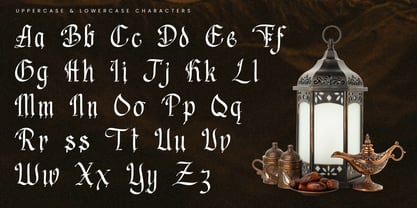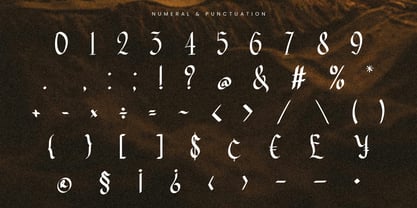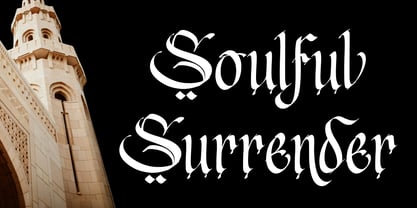
Haryth Mirage
The Haryth Mirage Font Family was designed by Randi Irvan and published by Rvandtype. Haryth Mirage contains 1 styles. More about this family
Haryth Mirage is a name born from the strength and illusion of the desert, combining “Haryth”—a masculine name symbolizing resilience and a warrior spirit—with “Mirage,” the mysterious desert illusion that appears real yet remains untouchable. It represents a lone wanderer whose quiet presence commands respect without seeking attention. This spirit is embodied in the typeface through bold blackletter forms infused with subtle Arabic character, featuring sharp strokes, dramatic curves, and a powerful silhouette—making it perfect for cinematic posters, strong branding, statement logos, and designs that demand a bold and legendary presence.